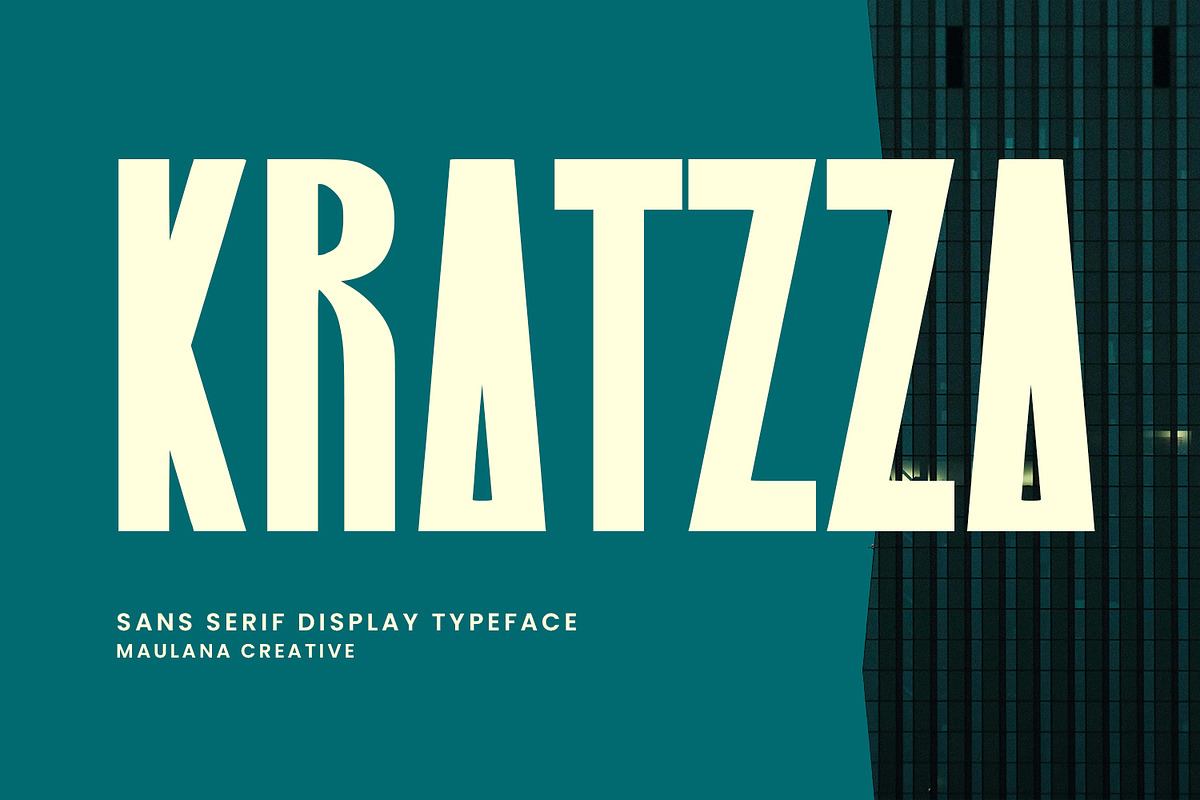
Kratzza Sans Serif Display Font Free Download is a bold and modern typeface with a sleek, angular aesthetic that’s perfect for high-impact design projects. With its clean lines, sharp edges, and futuristic feel, Kratzza is ideal for branding, tech startups, posters, headlines, sports graphics, and digital interfaces that demand attention.
This display font stands out with its geometric construction and contemporary attitude, making it great for projects that need a strong visual presence. Whether you’re designing a modern logo or a bold website header, Kratzza delivers power and precision.
The font includes uppercase letters, numerals, punctuation, and multilingual support. Optimized for both print and digital use, it performs best in large sizes where its stylized structure can shine.